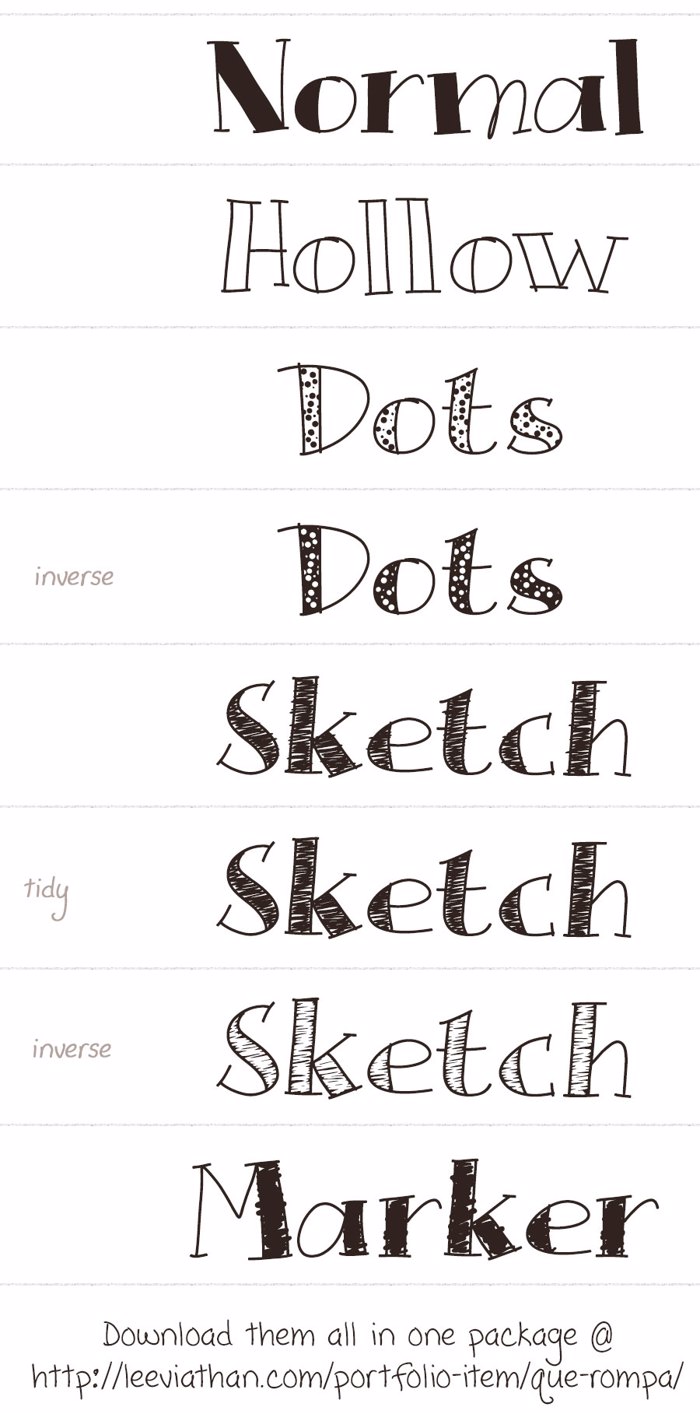
Que Rompa Font
Cool thing: As with all my handwritten fonts, this font utilizes OpenType contextual and stylistic alternatives for a more realistic handwritten appearance.